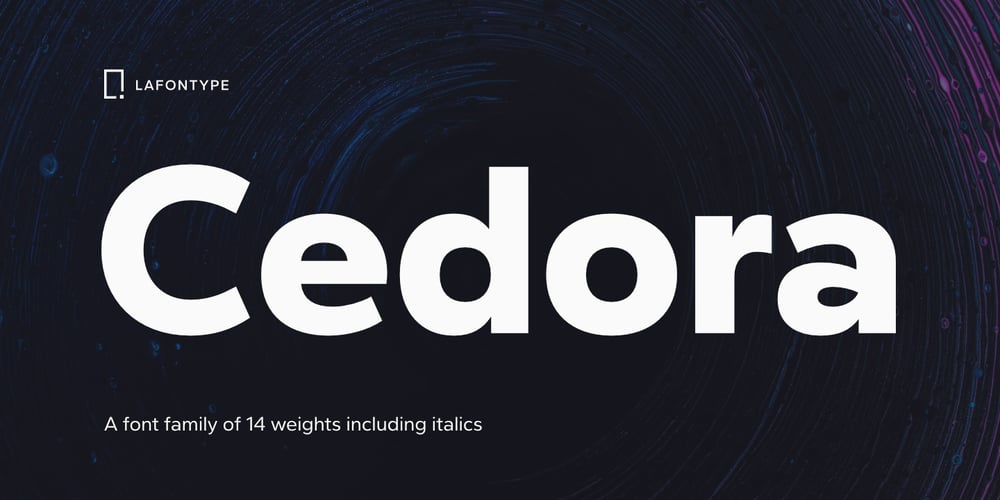
Cedora Font Family was designed by Anugrah Pasau and published by Lafontype. Cedora contains 14 styles and family package options. Cedora is a humanist sans serif designed with a playful appearance.Cedora comes in 14 styles with 7 weights ranging from thin to black each of which represents multiple languages allowing you to do editorial activities.In the terminal section the size is made a little thinner so that the shape doesn’t look so sharp and the x-height and open counter have been taken into account so that it is good enough for a small text size.